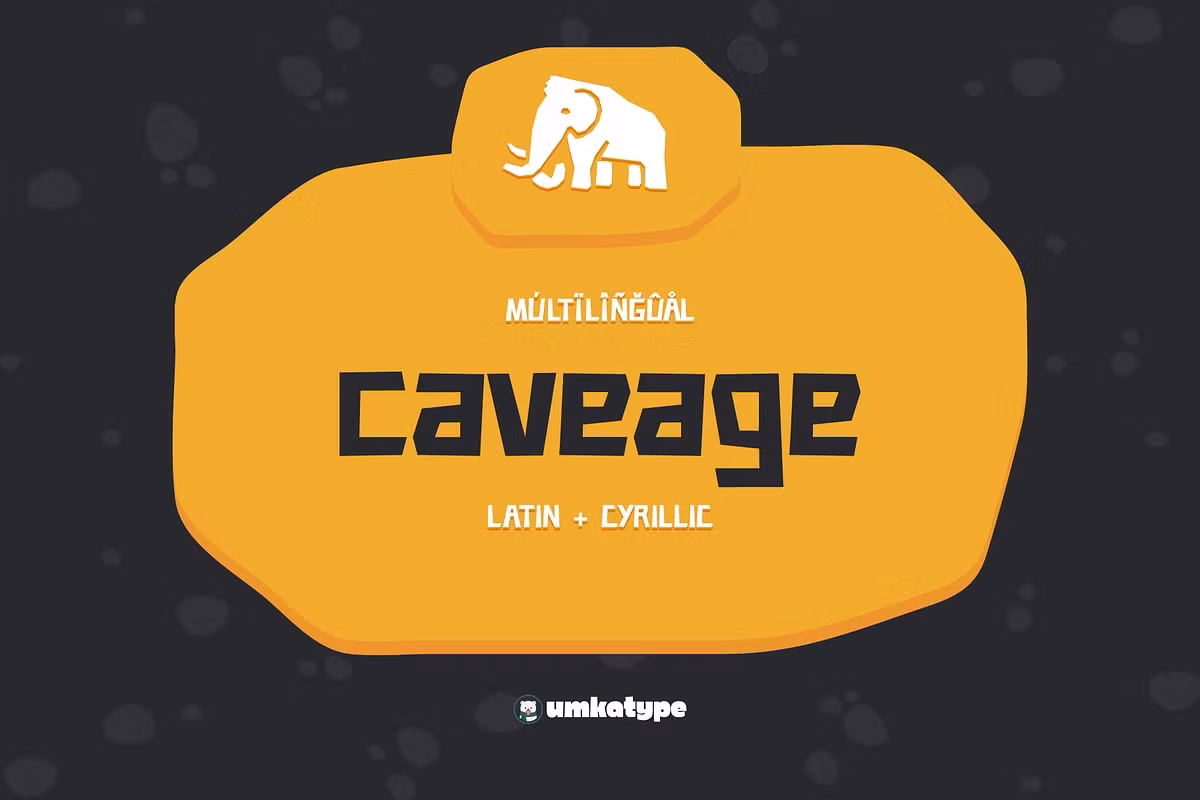
Caveage Display Font Free Download is a bold, adventurous typeface designed to make a powerful statement. With its strong, geometric shapes and sharp angles, this font is perfect for projects that need to convey strength, boldness, and modernity. Whether you're working on posters, logos, branding, or headlines, Caveage adds a contemporary and edgy vibe to any design.
Using the Caveage Display Font Free Download helps you create designs that stand out with high impact. Its unique character and clean lines make it ideal for projects that require a bold and distinctive look. It’s great for both digital and print designs that need to grab attention.